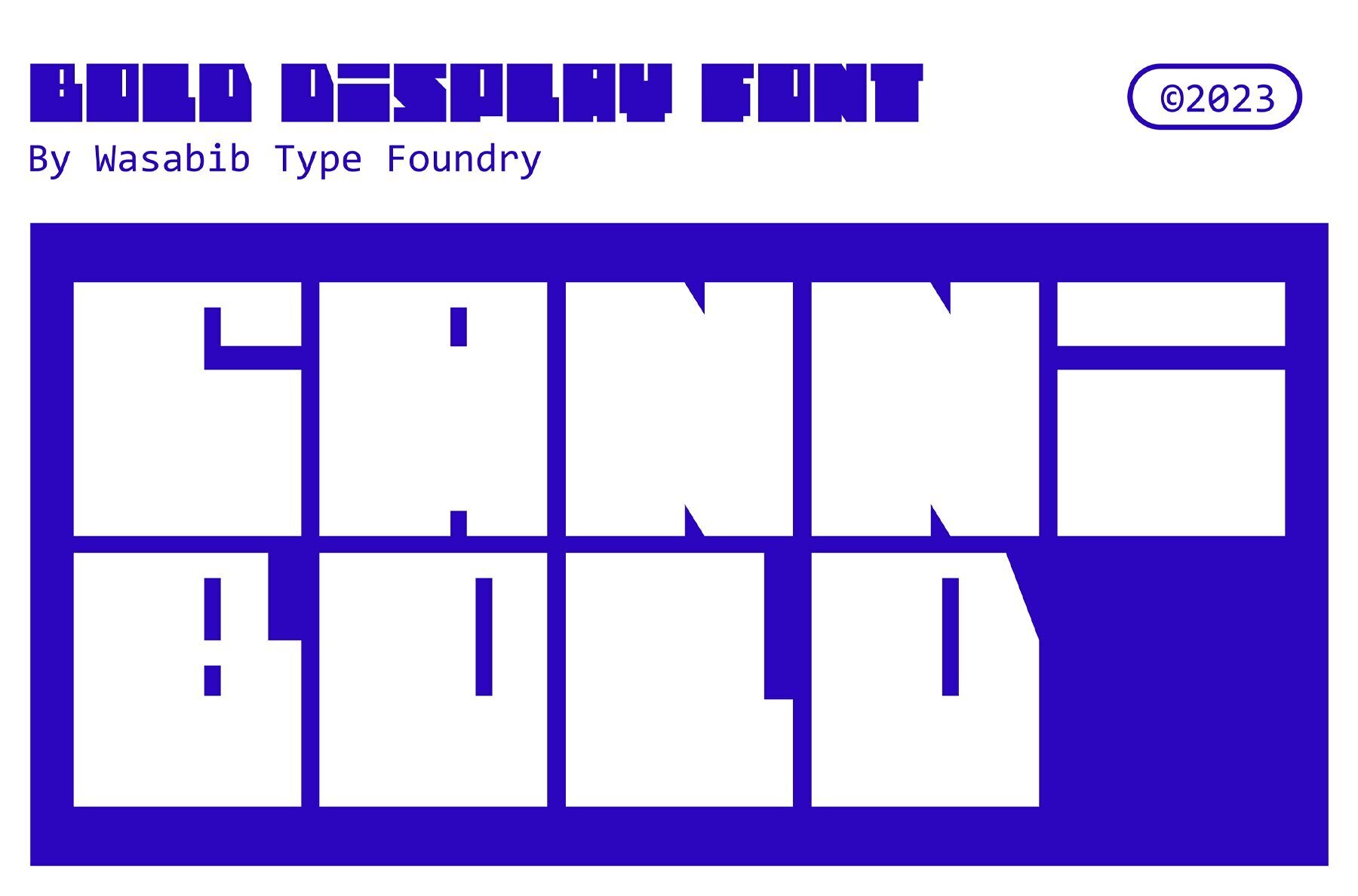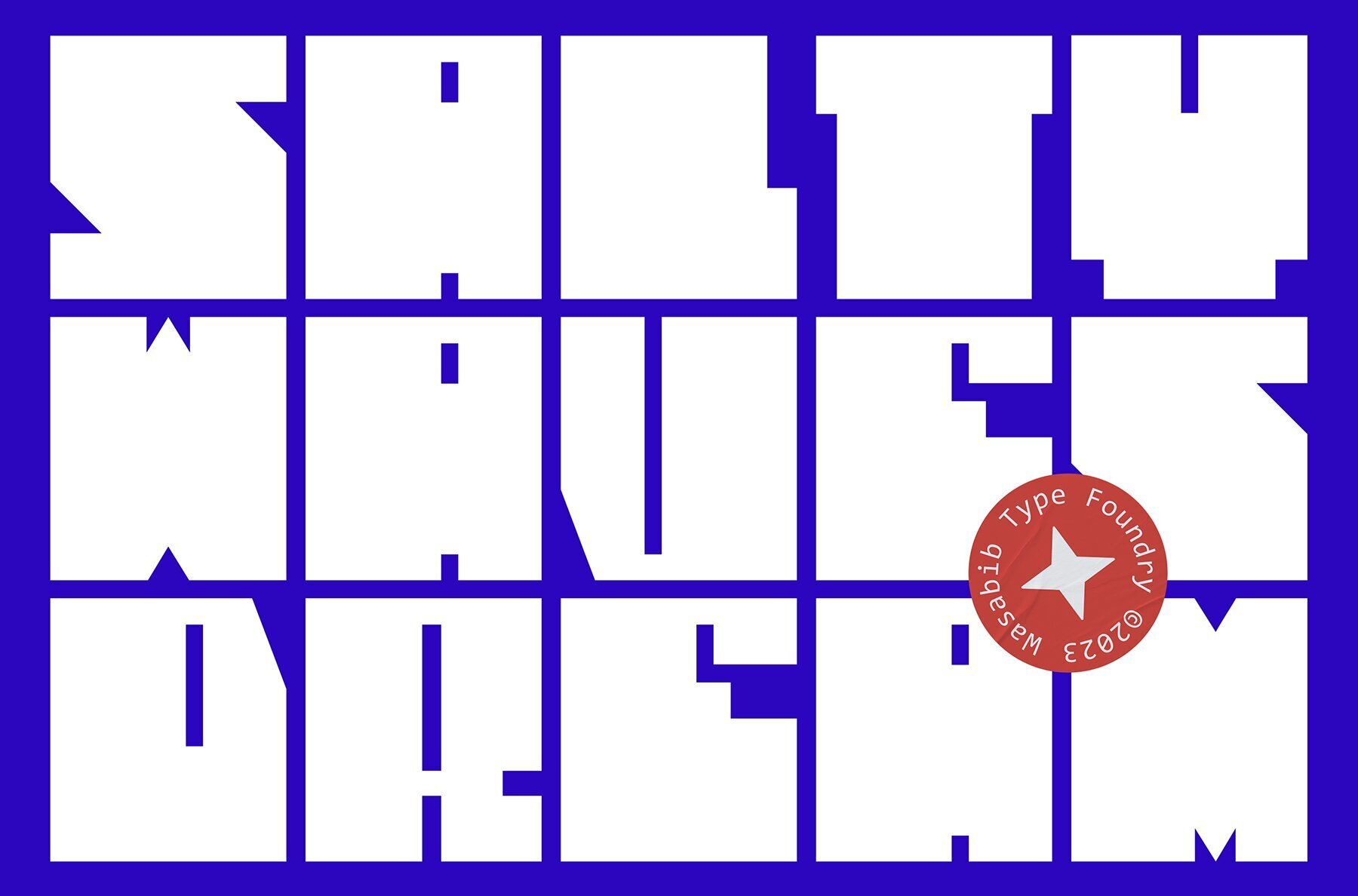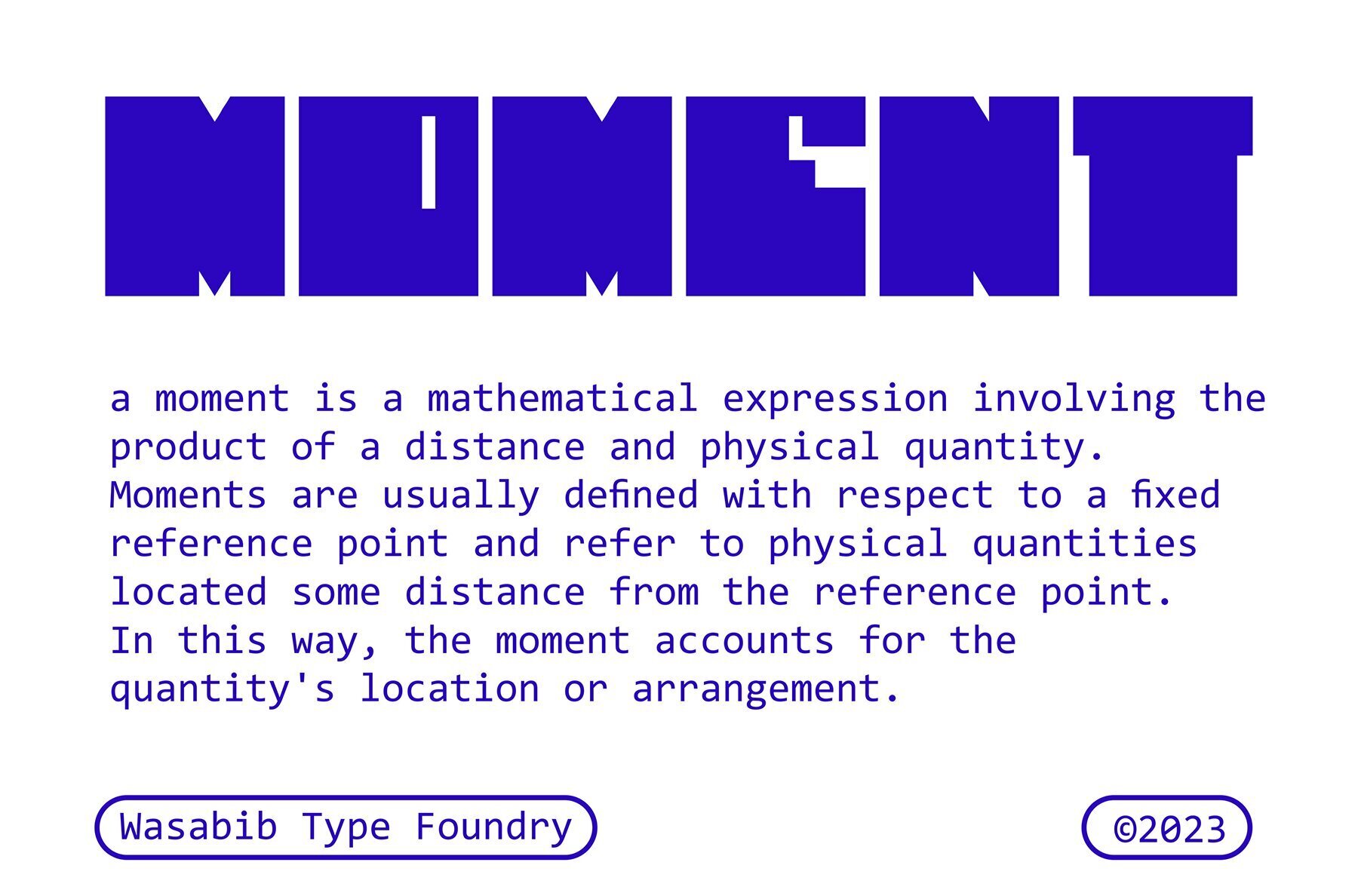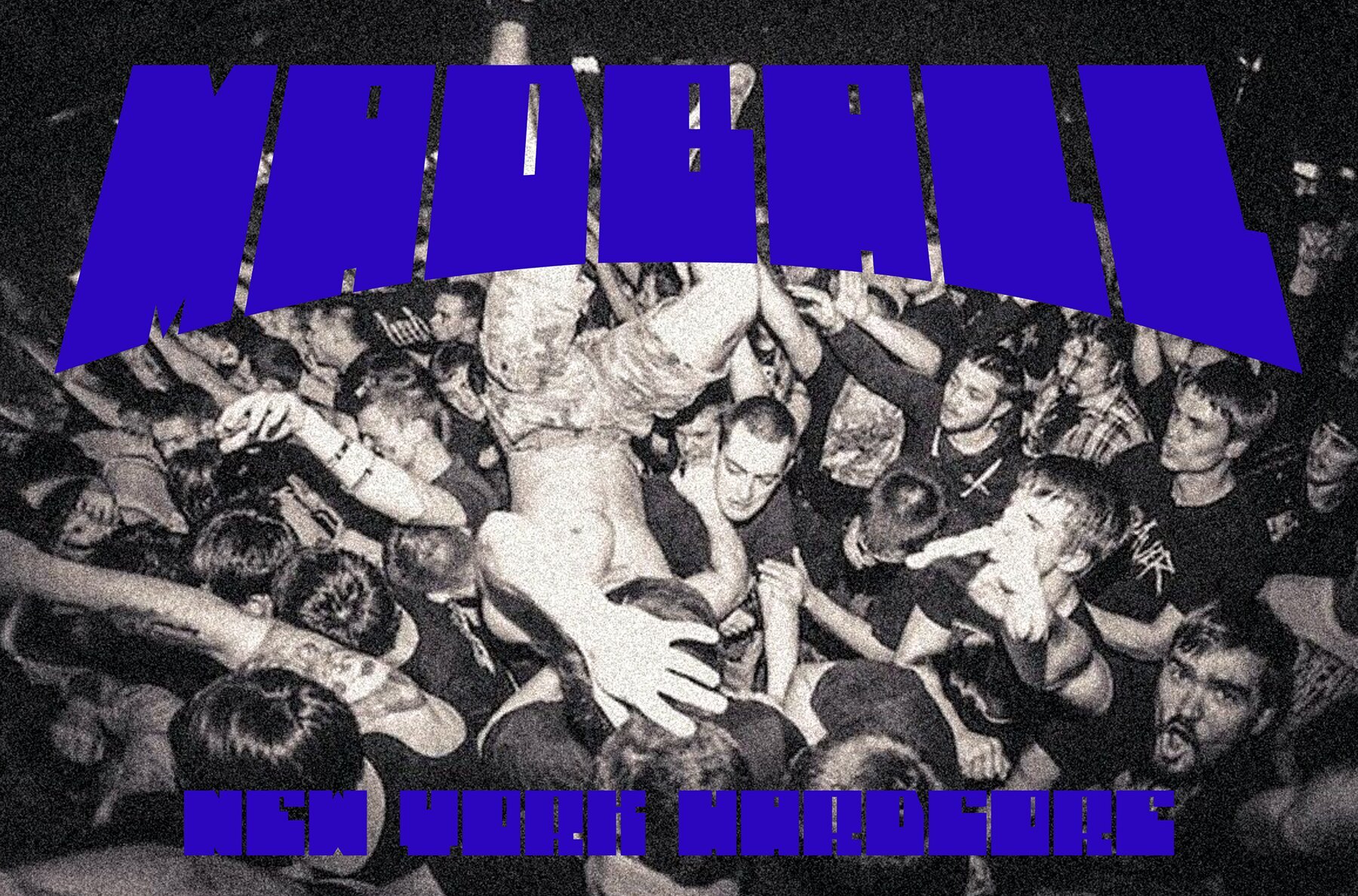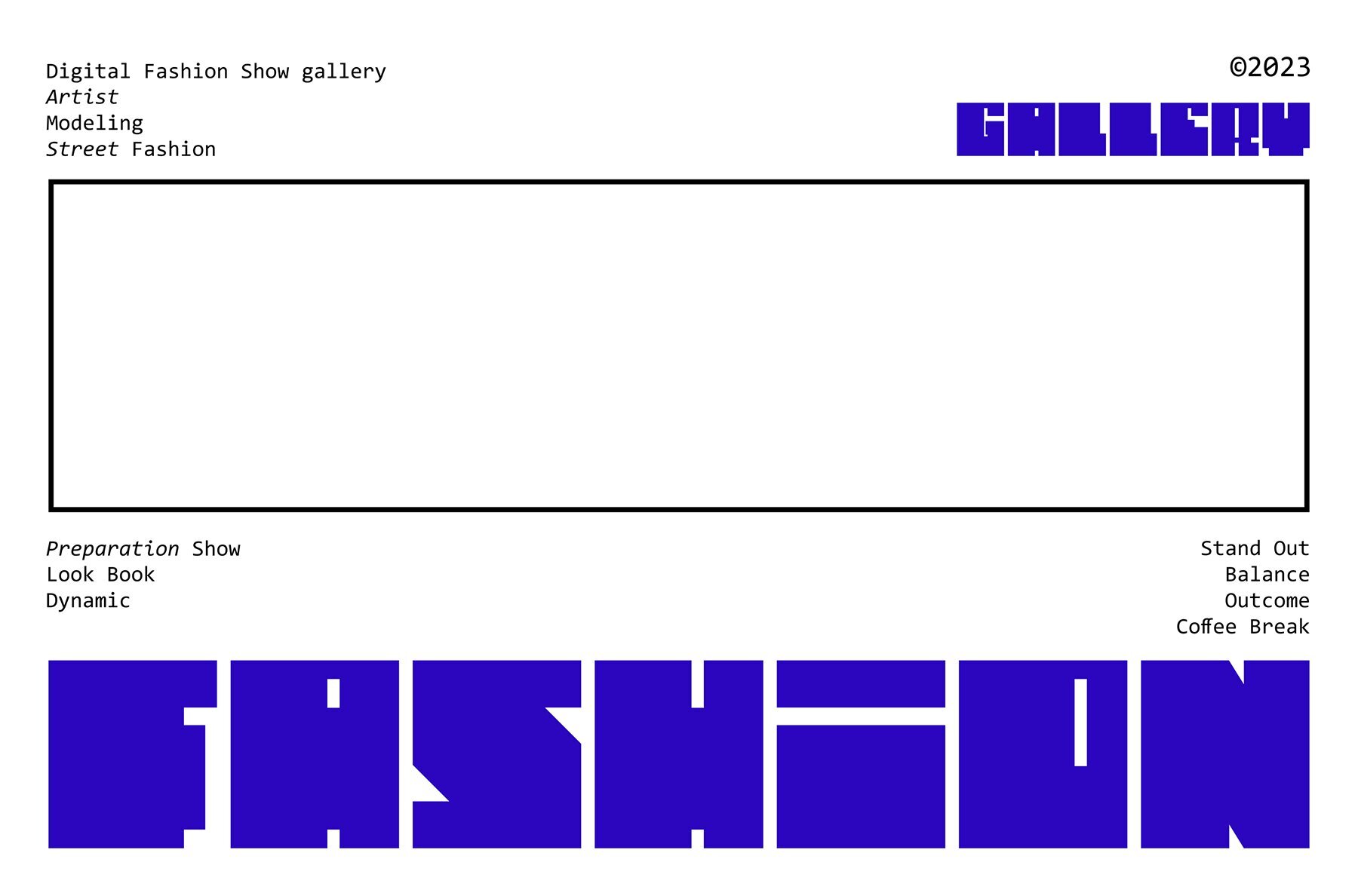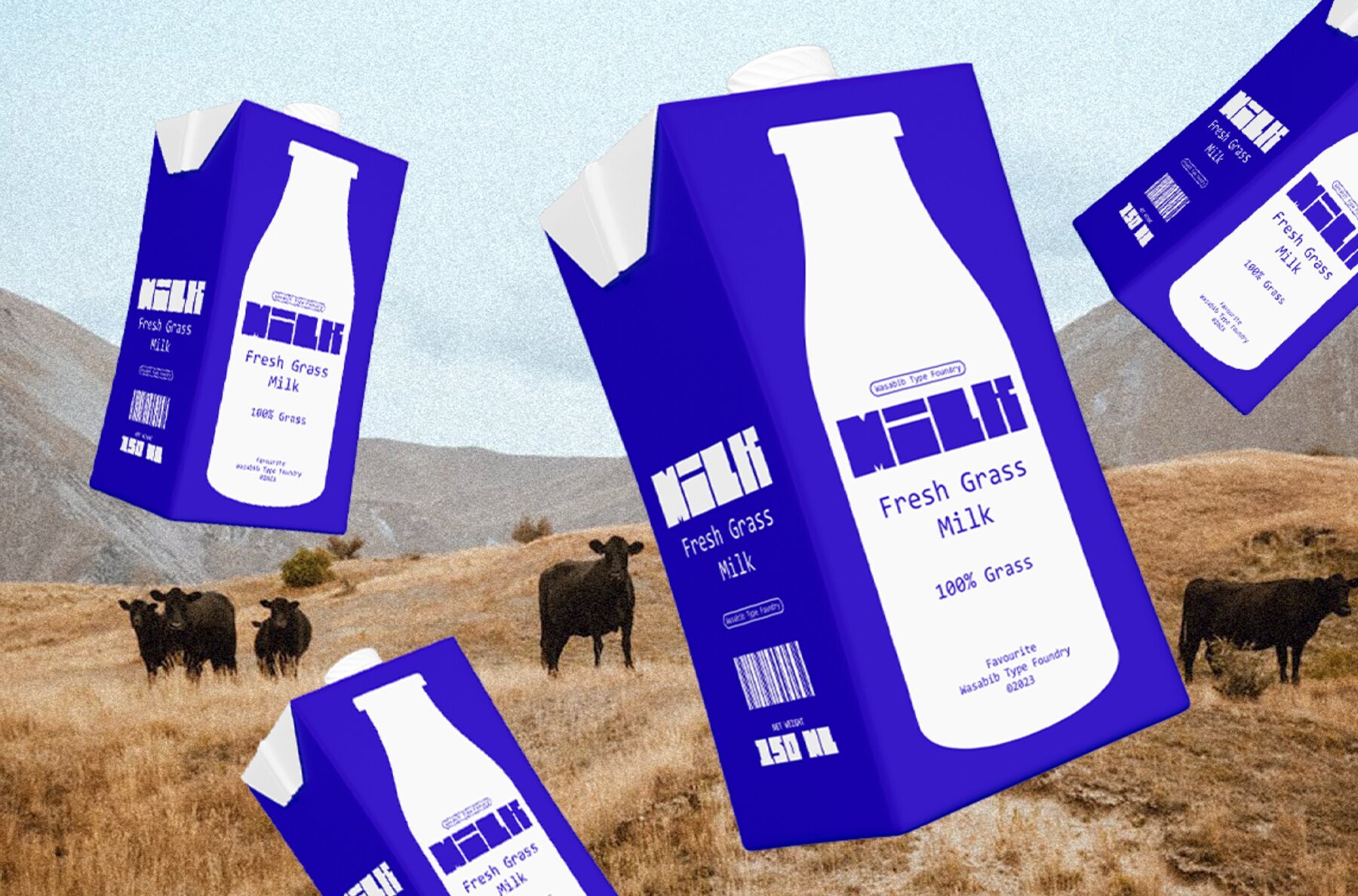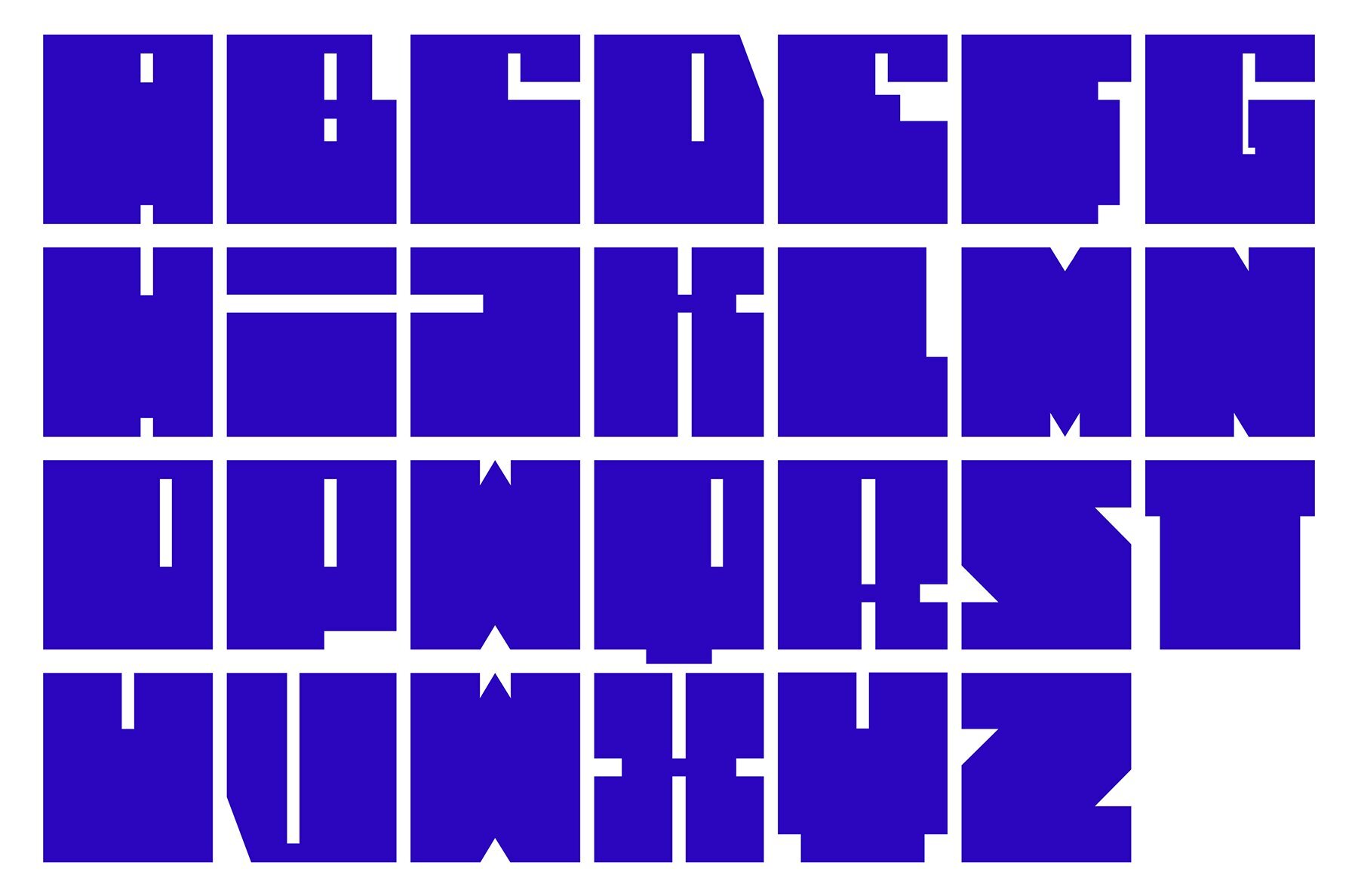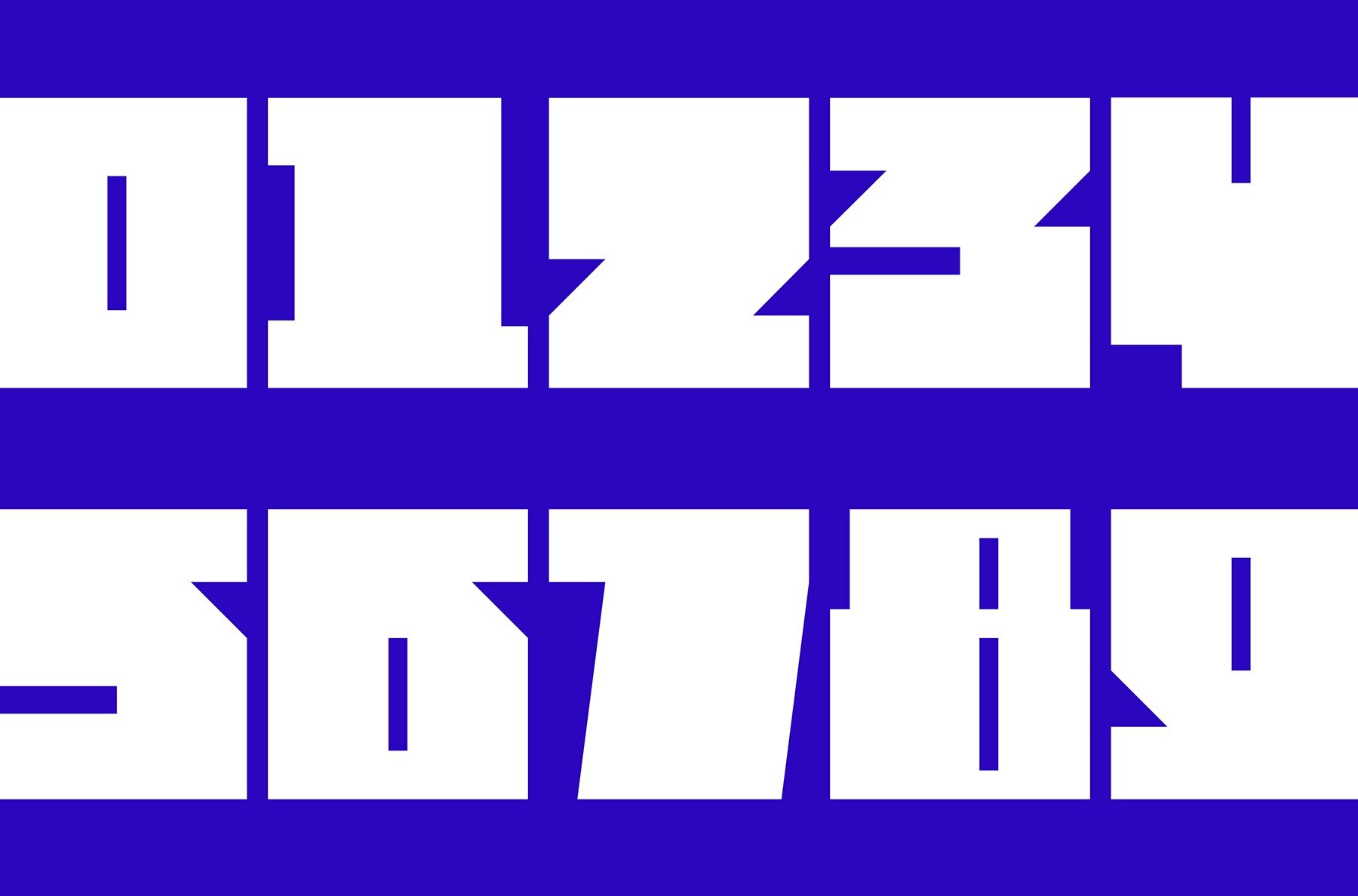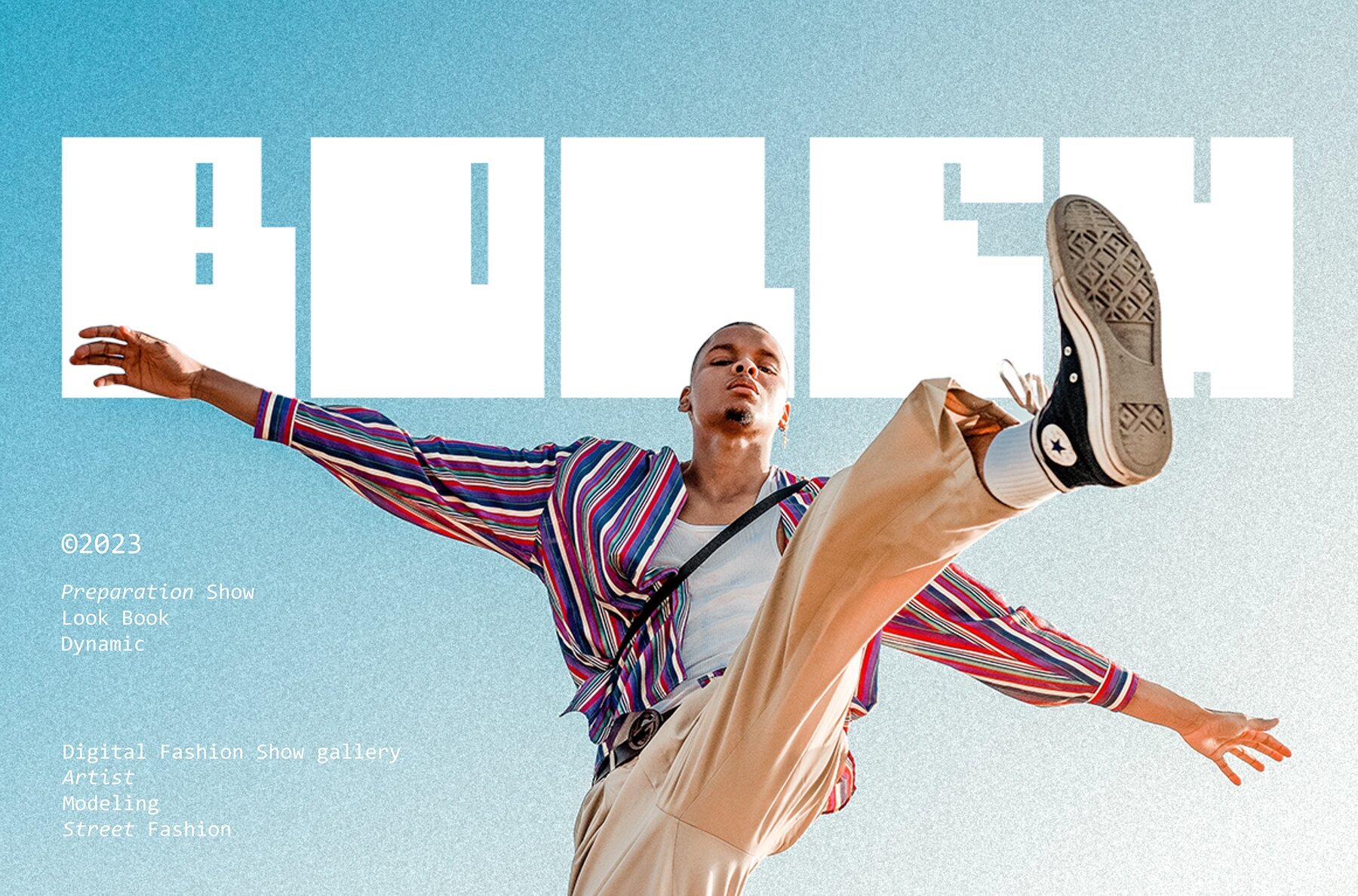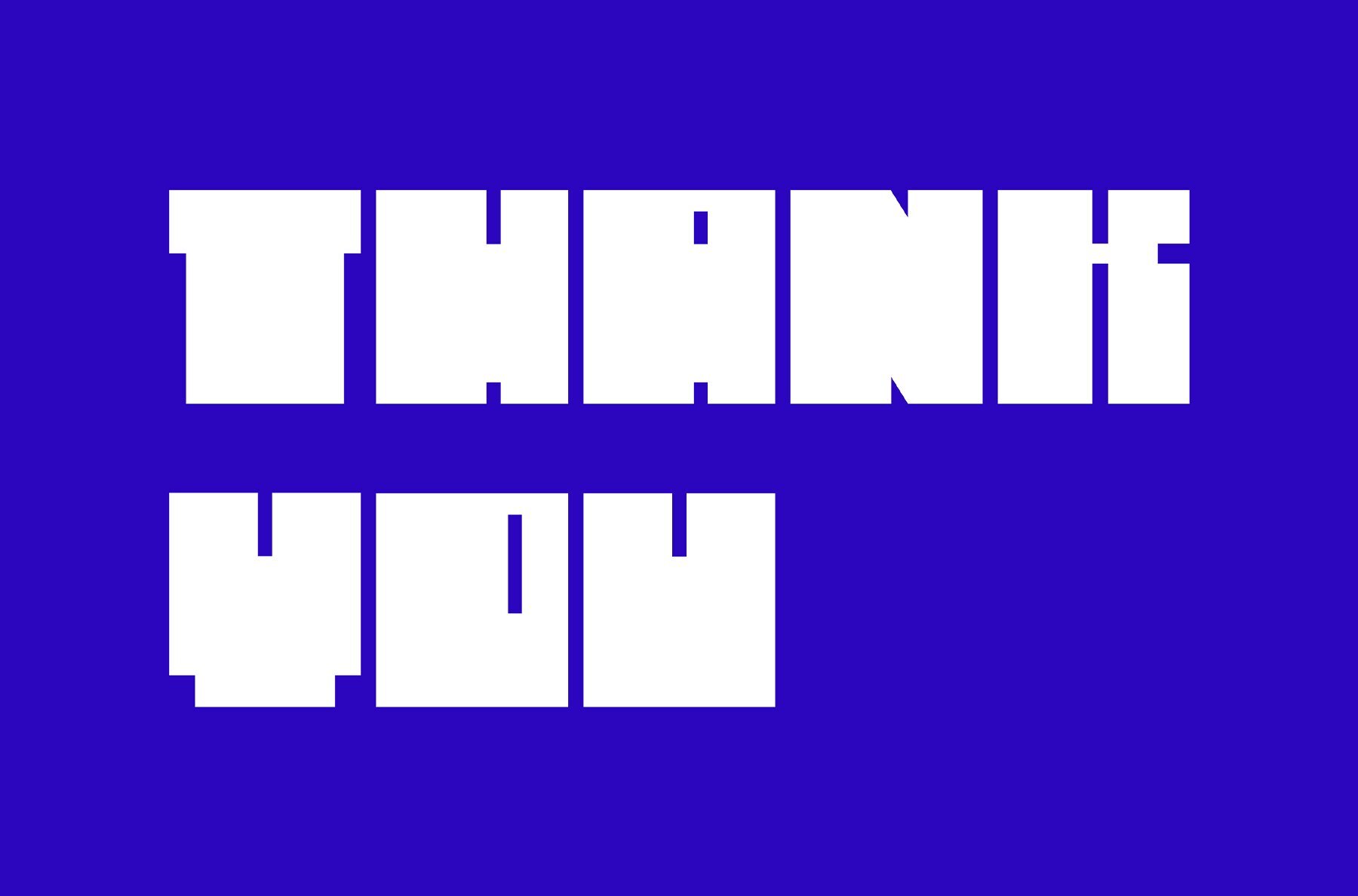
Cannibold Font
WTF Cannibold Regular
Cannibold is a bold, contemporary font characterized by its modern, square design that exudes confidence. With clean lines and a commanding presence, it captures attention immediately, making it ideal for a variety of design projects. The meticulous craftsmanship of each letter ensures a striking visual impact, offering a dynamic aesthetic well-suited for creative and professional works.
The robust weight of Cannibold imparts a sense of strength and authority to its characters. Its thick strokes bestow each letter with a solid and substantial quality, making it an excellent choice for headlines, logos, and other eye-catching text elements. This font's assertive style ensures that it stands out prominently, even from afar, making it perfect for designs seeking to communicate boldness and modernity.